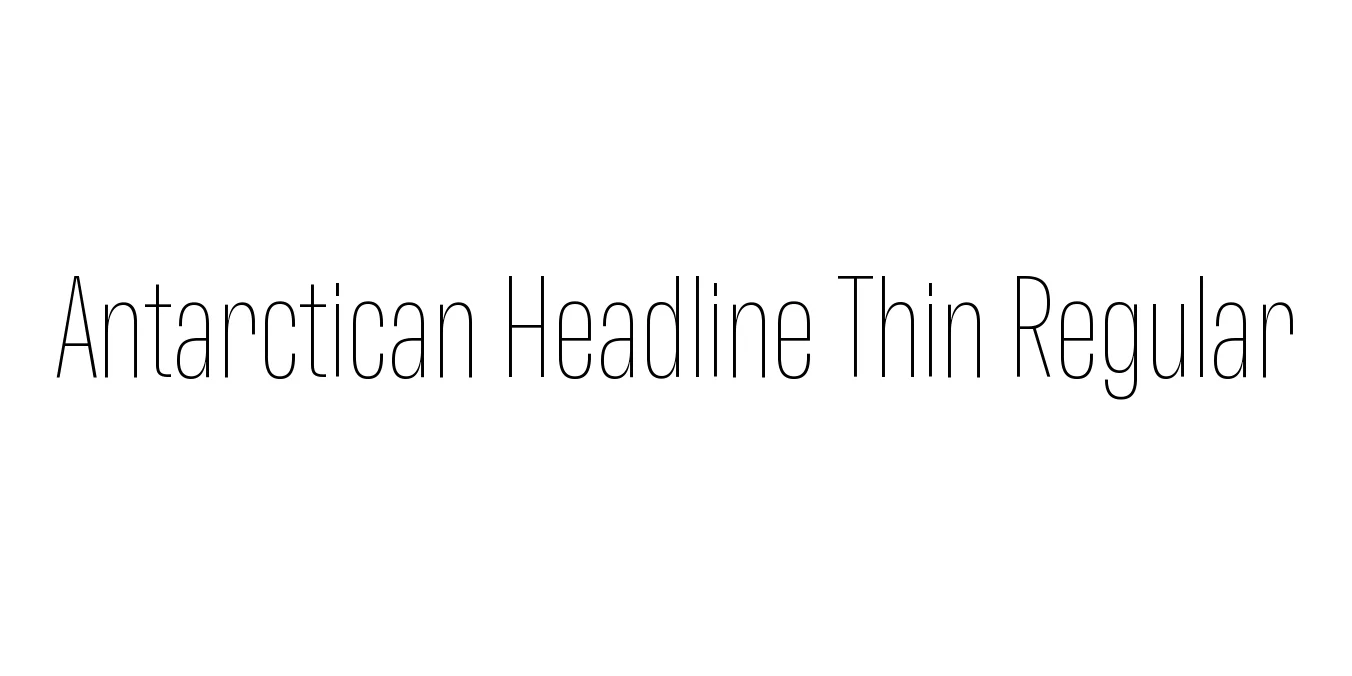
Antarctican Headline Thin Regular
Designed by James Edmondson
Antarctican Headline Thin Regular is a sophisticated sans-serif typeface designed by James Edmondson and released through the OH no Type Co foundry. This font family was inspired by the utilitarian and stark aesthetic of signage found in extreme environments, resulting in a design that is both highly functional and visually striking. The Thin Regular weight emphasizes geometric precision and clean, vertical lines, making it a favorite for designers seeking a modern, architectural feel.
The typeface is characterized by its condensed proportions and minimal stroke contrast, which allow for maximum impact in limited spaces. Antarctican Headline bridges the gap between classic industrial grotesque styles and contemporary digital refinement. It is particularly effective for high-end editorial layouts, minimalist branding, and technical user interfaces where clarity and elegance are paramount.
Antarctican Headline Thin Regular Best Uses
Perfect for sophisticated magazine headlines and layouts.
Ideal for minimalist and modern corporate identities.
Excellent for clean hero sections and navigation headers.
Great for high-impact posters and promotional banners.